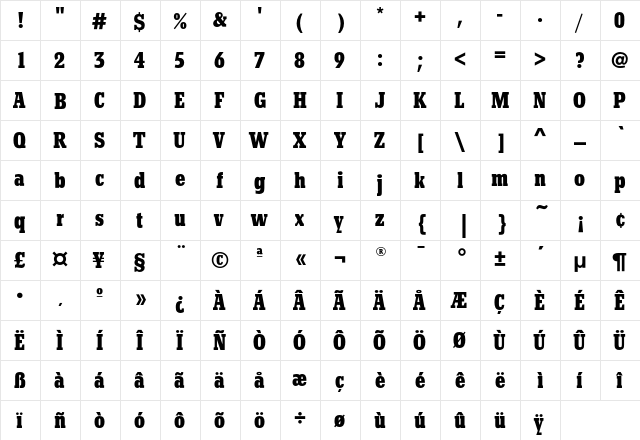
BetonEF BoldCondensed
Design Context for BetonEF Typeface
BetonEF offers clean, dependable letterforms without strong stylistic allegiance, making it a practical choice for designers who need flexibility. Its bold stroke weight gives it real presence on the page. Its narrow stance lets it pack a punch even in space-constrained designs.